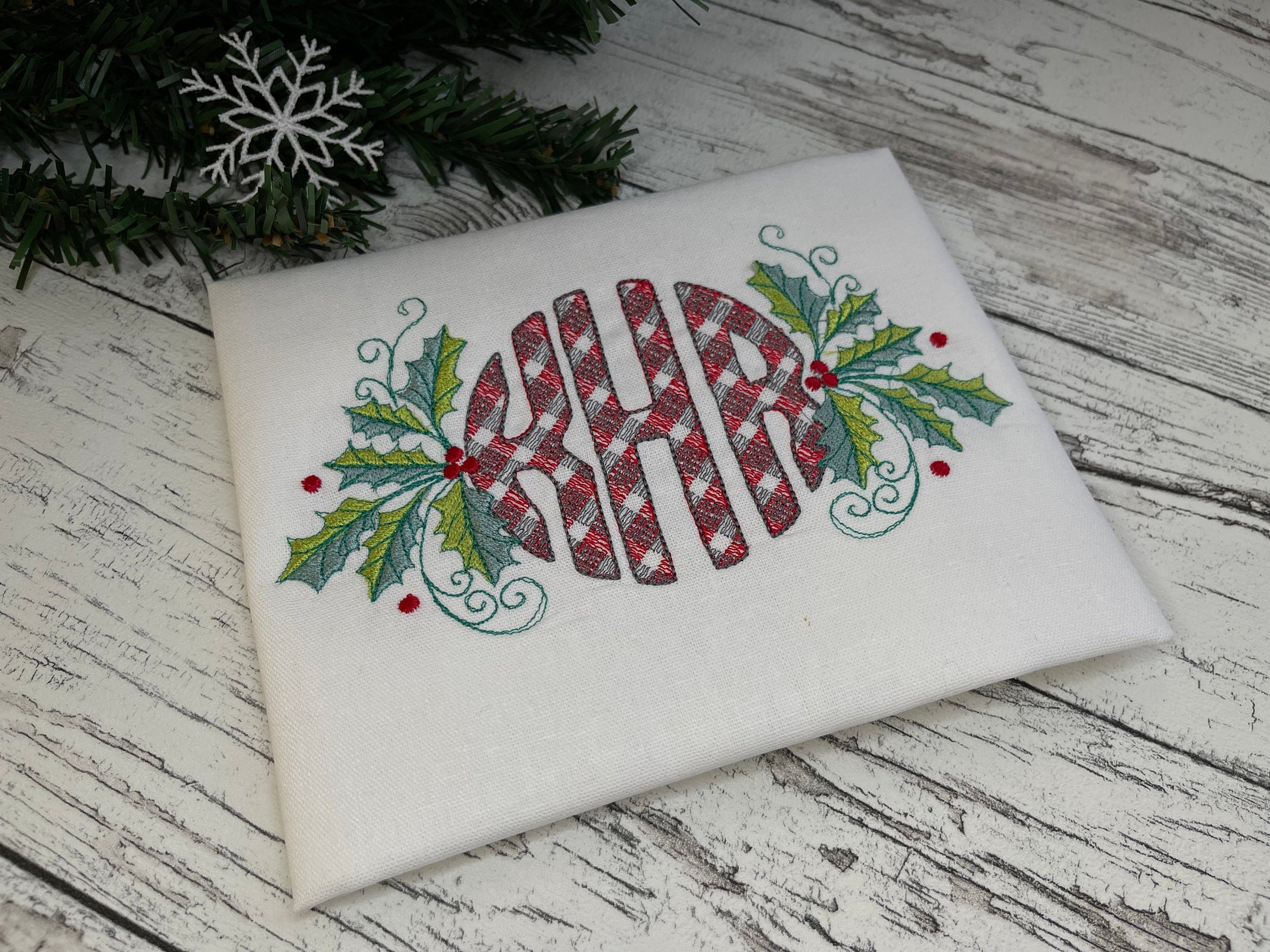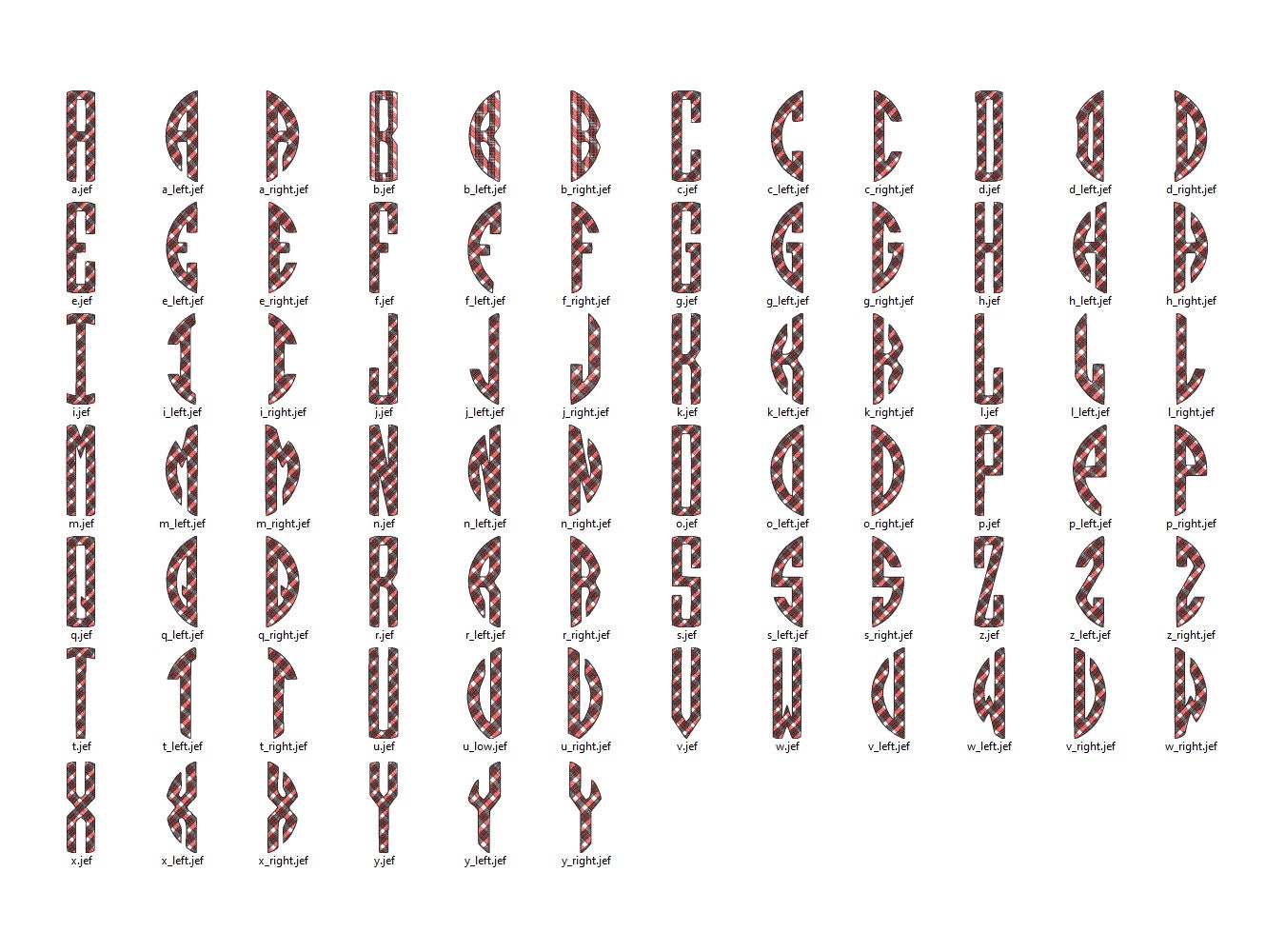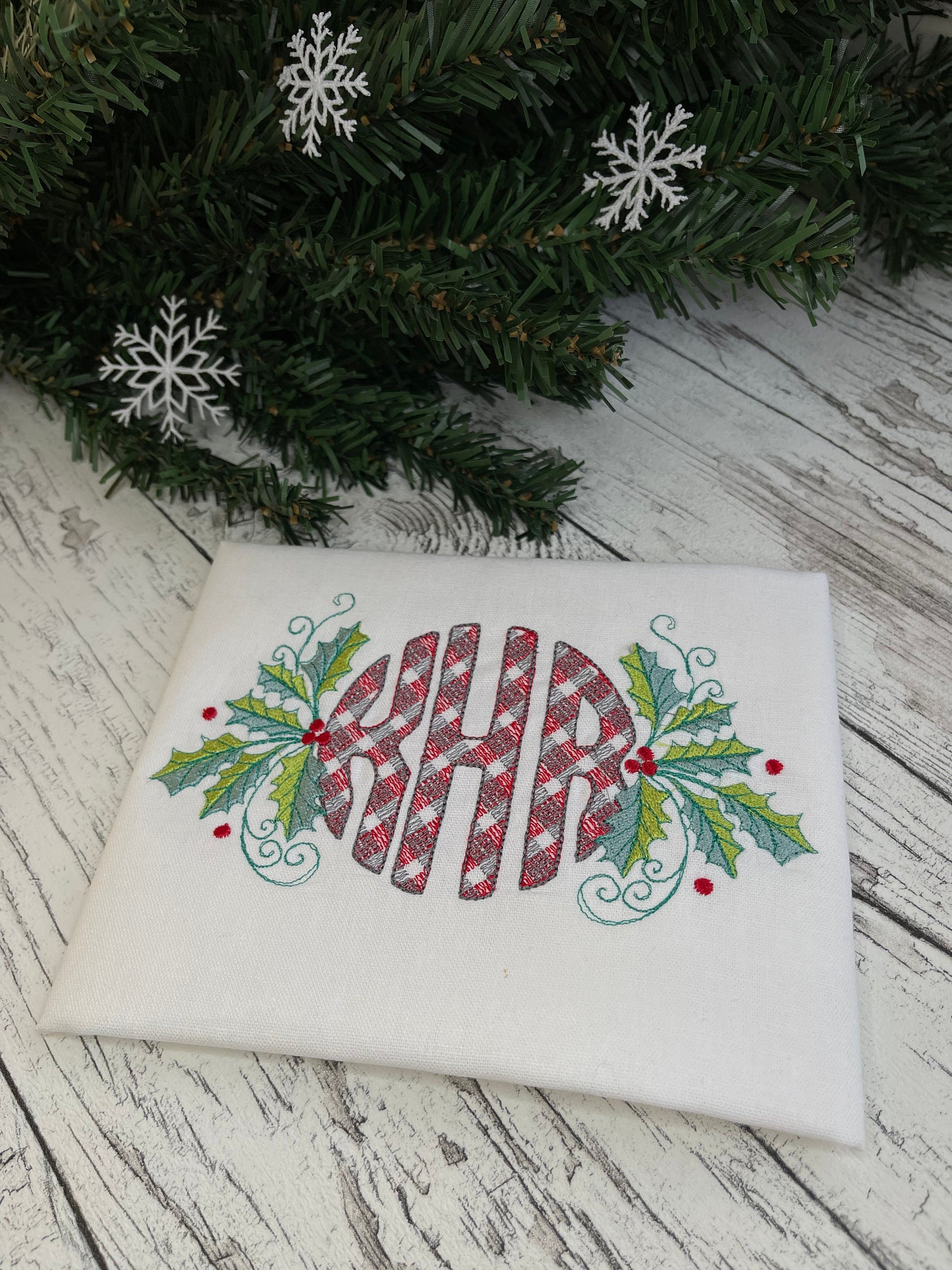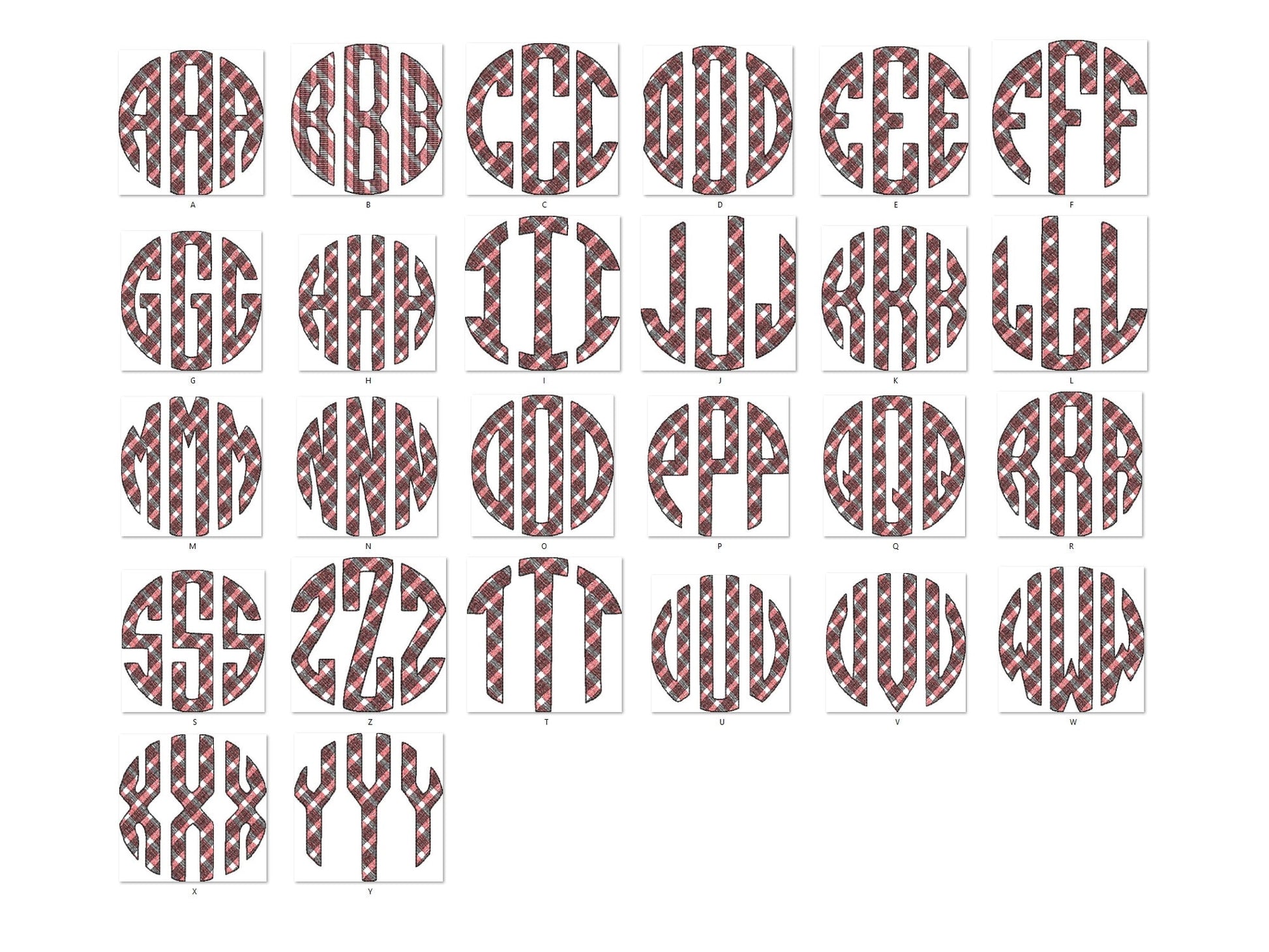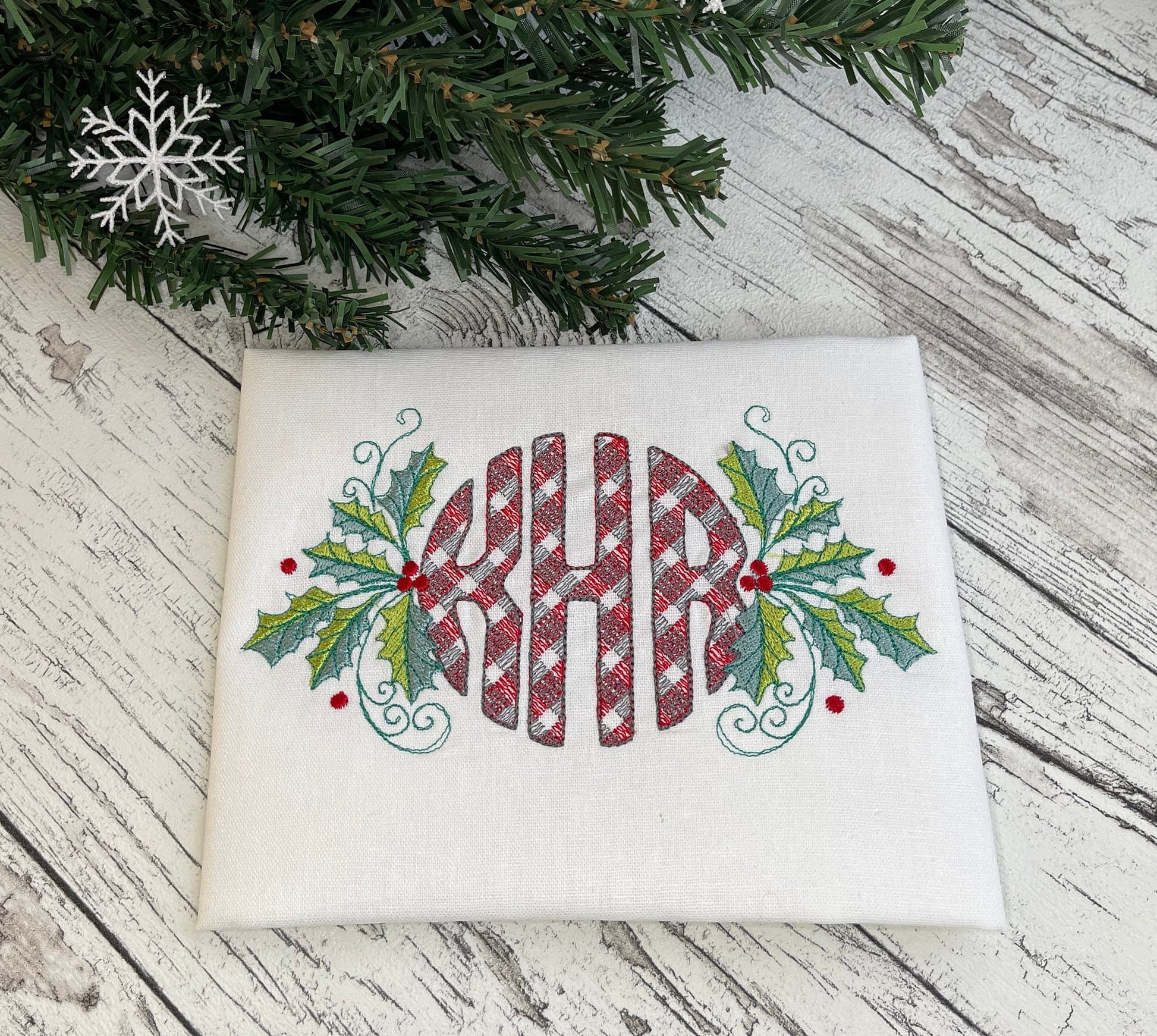
Or click to open the linkA three-letter circle monogram in a tartan plaid fill, with a holly decoration to finish it. Classic for Christmas stockings, pillows, towels and gifts.
All 26 letters come as left, center and right pieces that join into a circle monogram, in eight sizes: 2, 2.5, 3, 3.5, 4, 5, 6 and 7 inches. The tartan check is stitched into the fill. The holly decoration comes in six sizes: 2.5, 3, 3.5, 4, 4.5 and 5 inches.